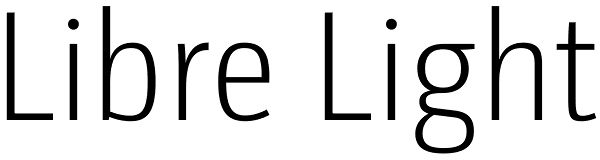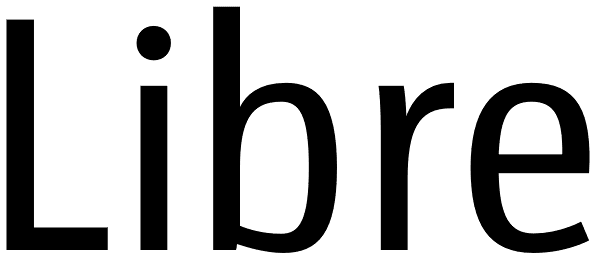
JHA Libre
The design of the type family ›libre‹ started as an University project under the auspices of Prof Lu(as) de Groot in Potsdam. It was enlarged step by step in typographical features and internationalisation. The qualities are visible in a wide range...